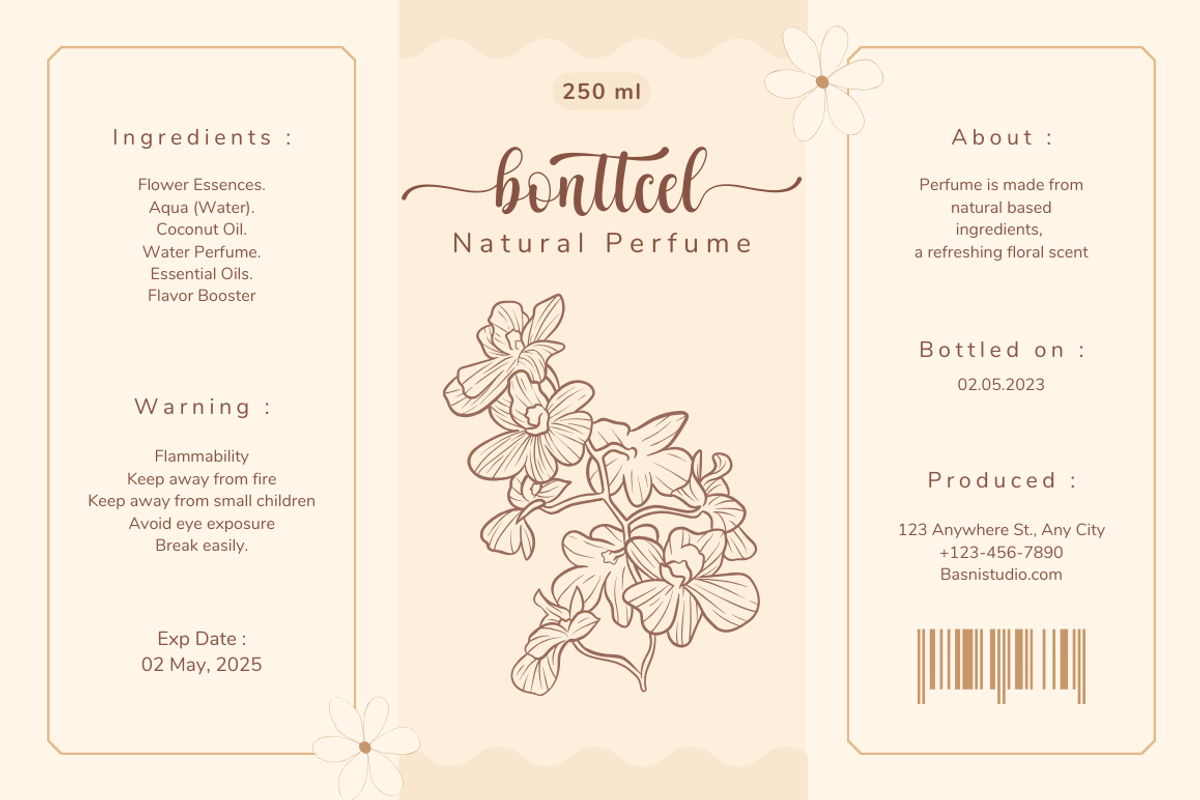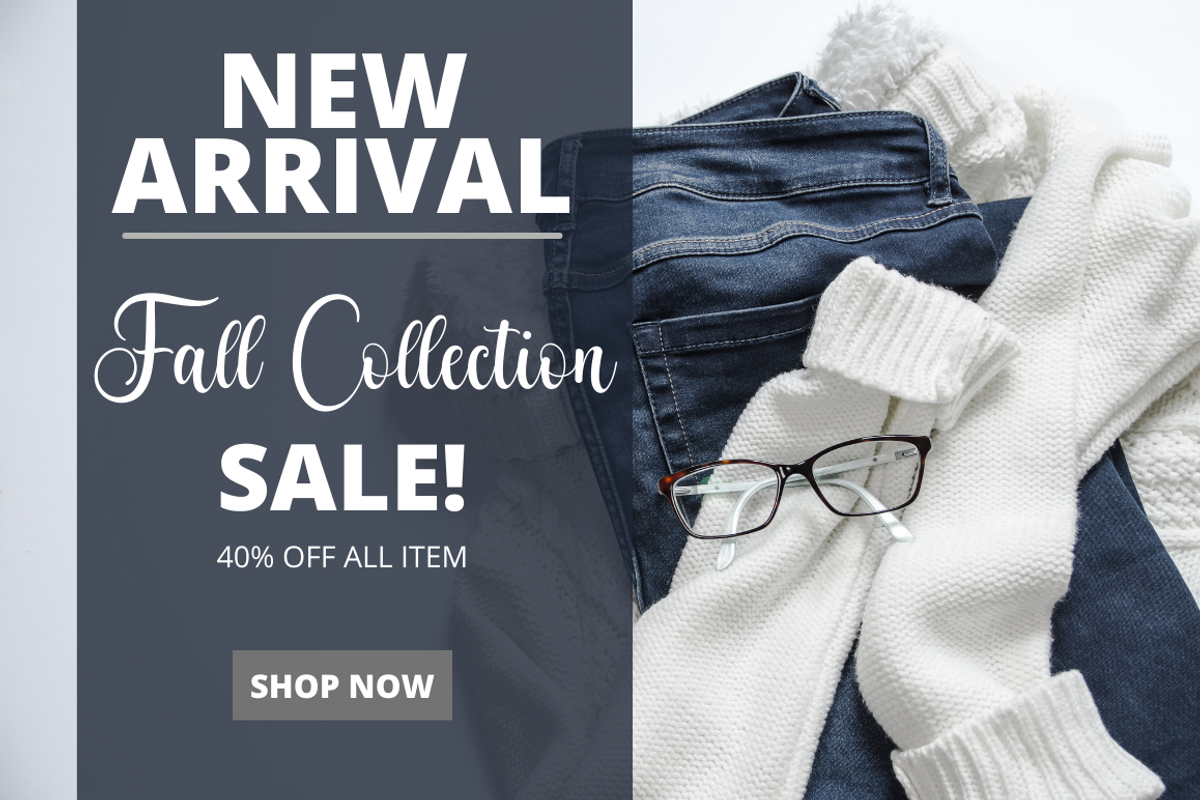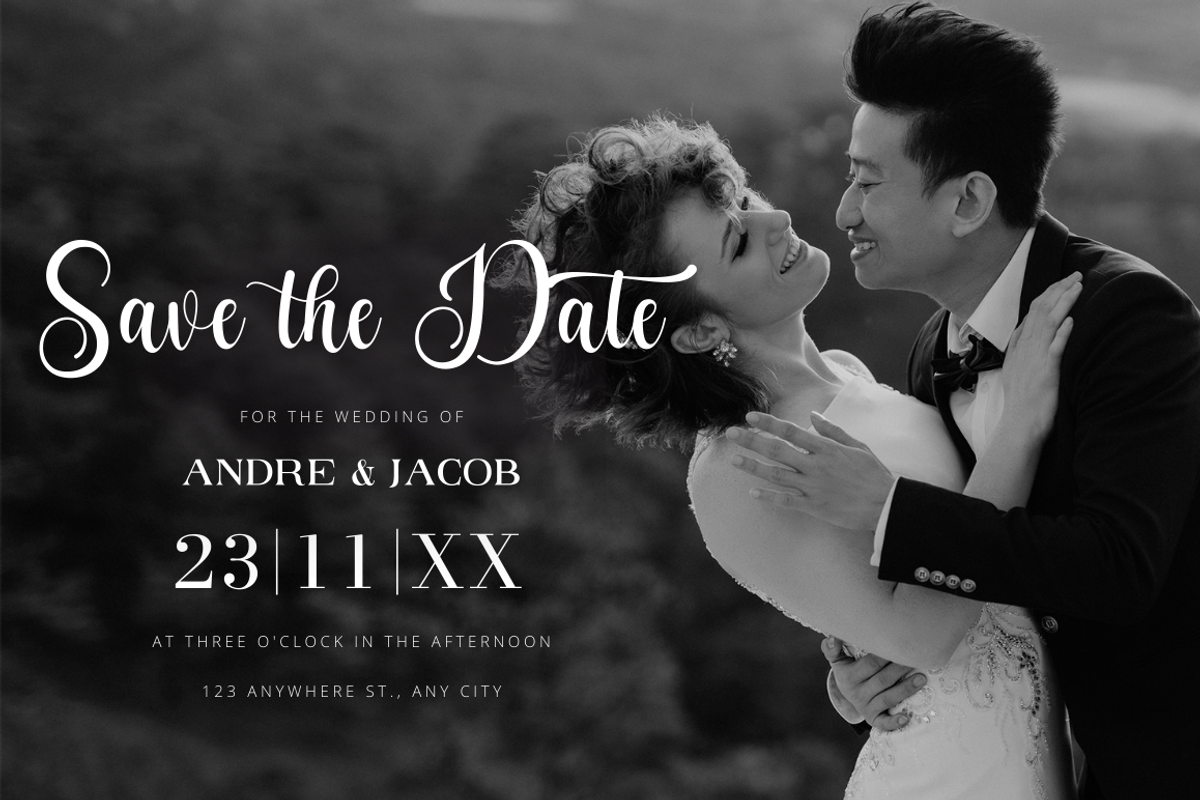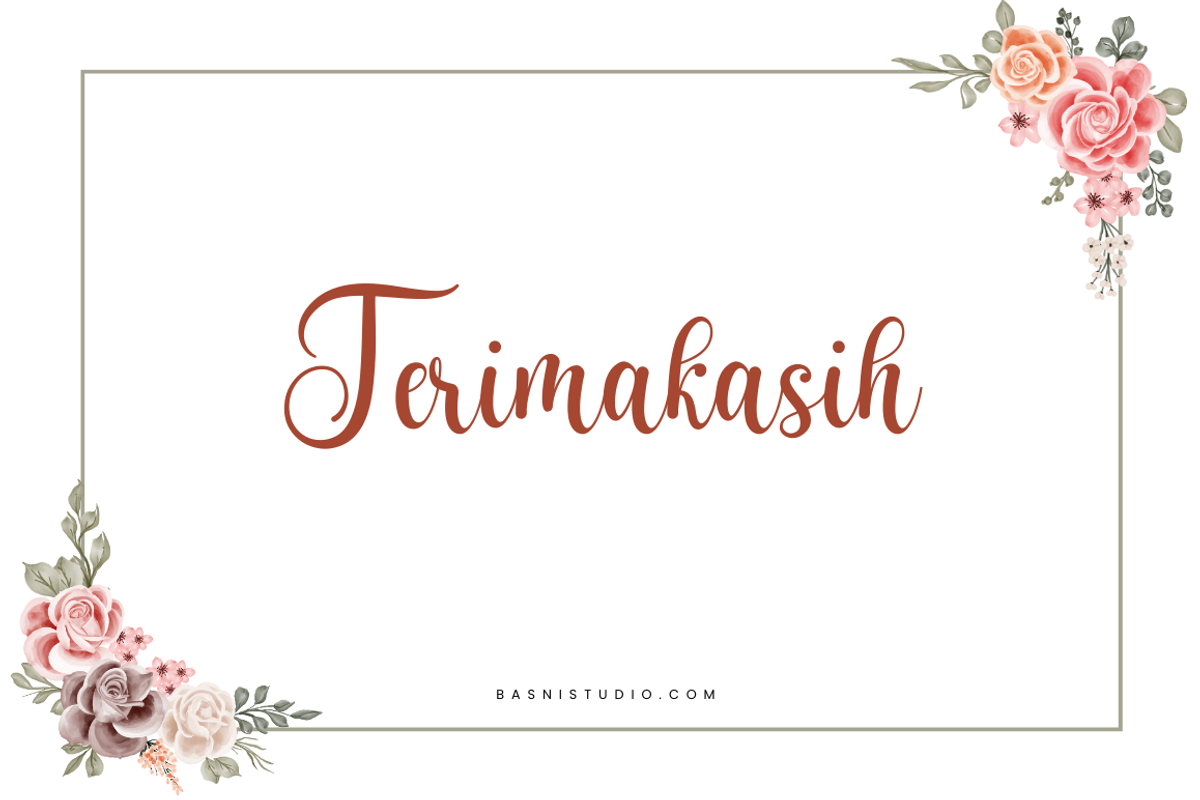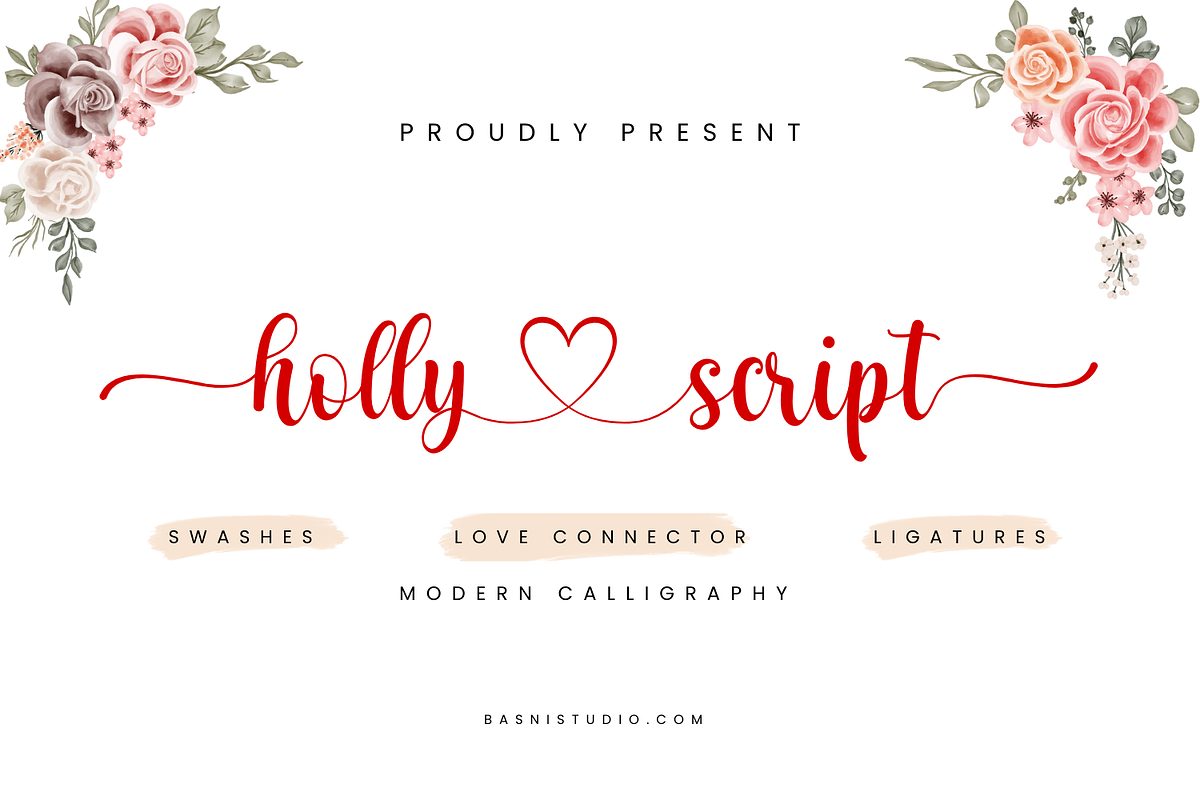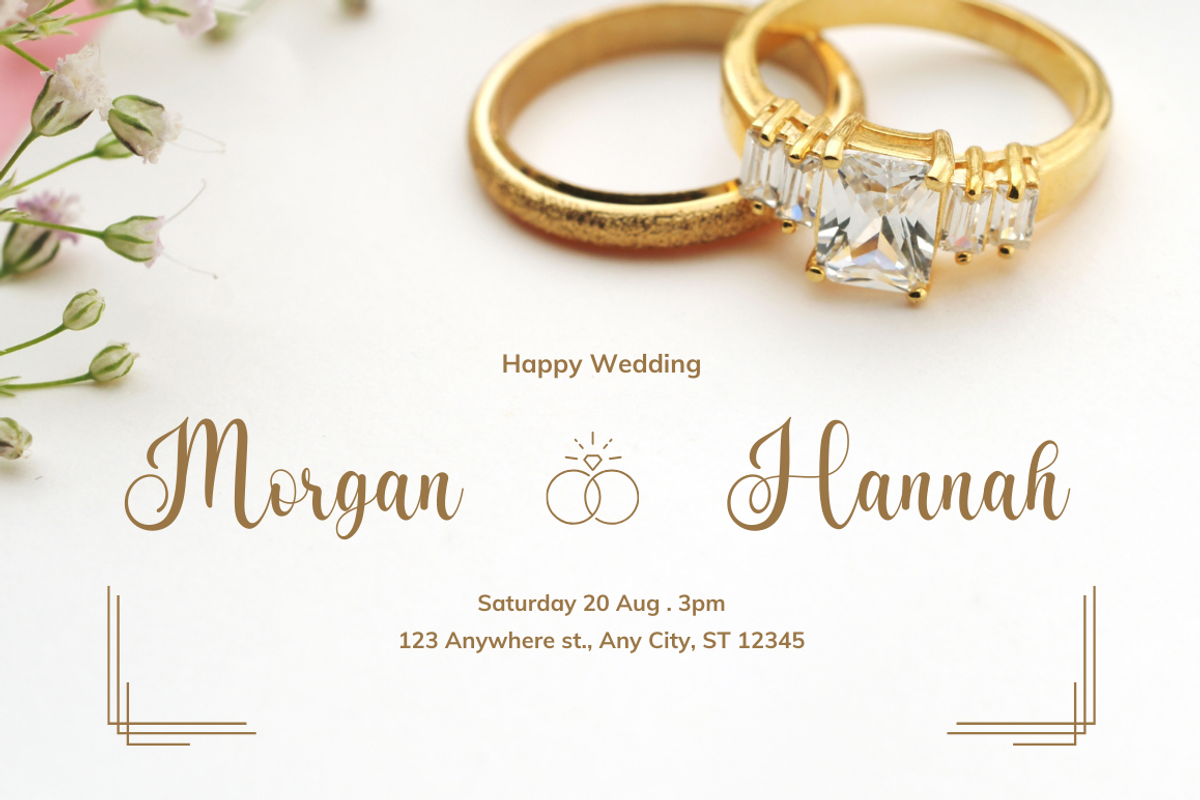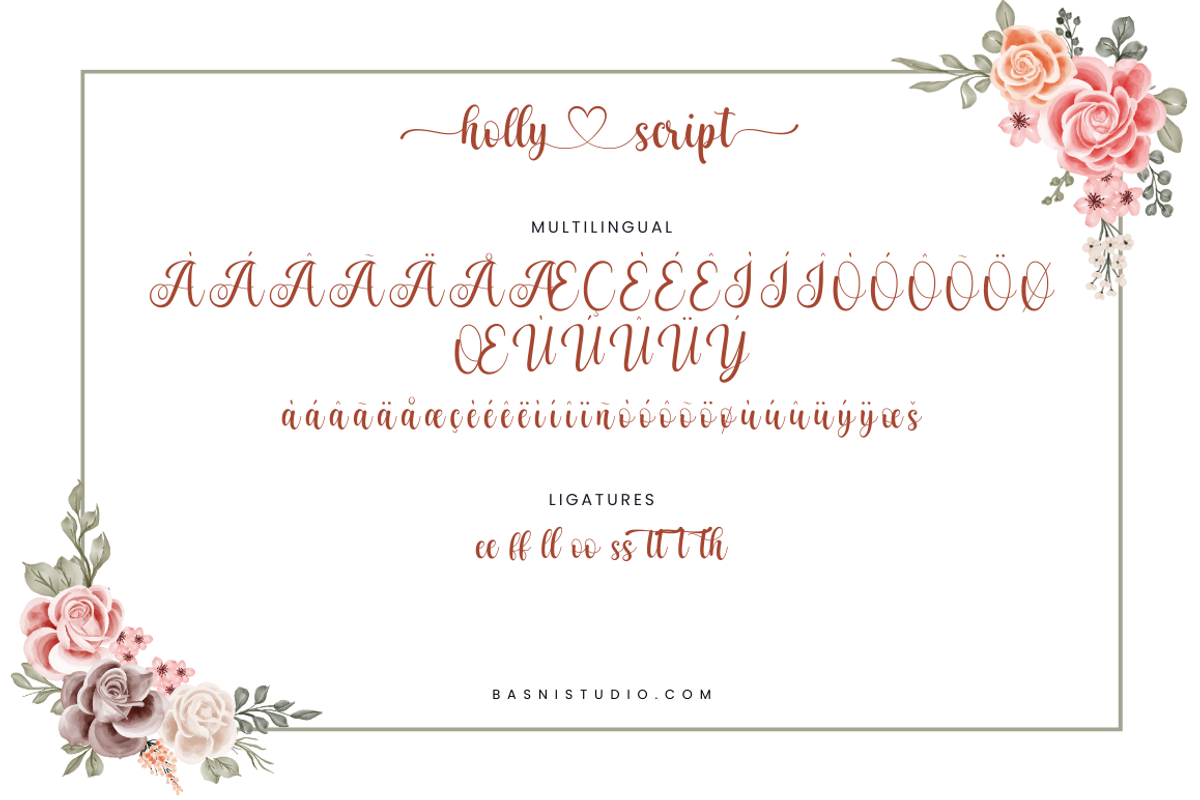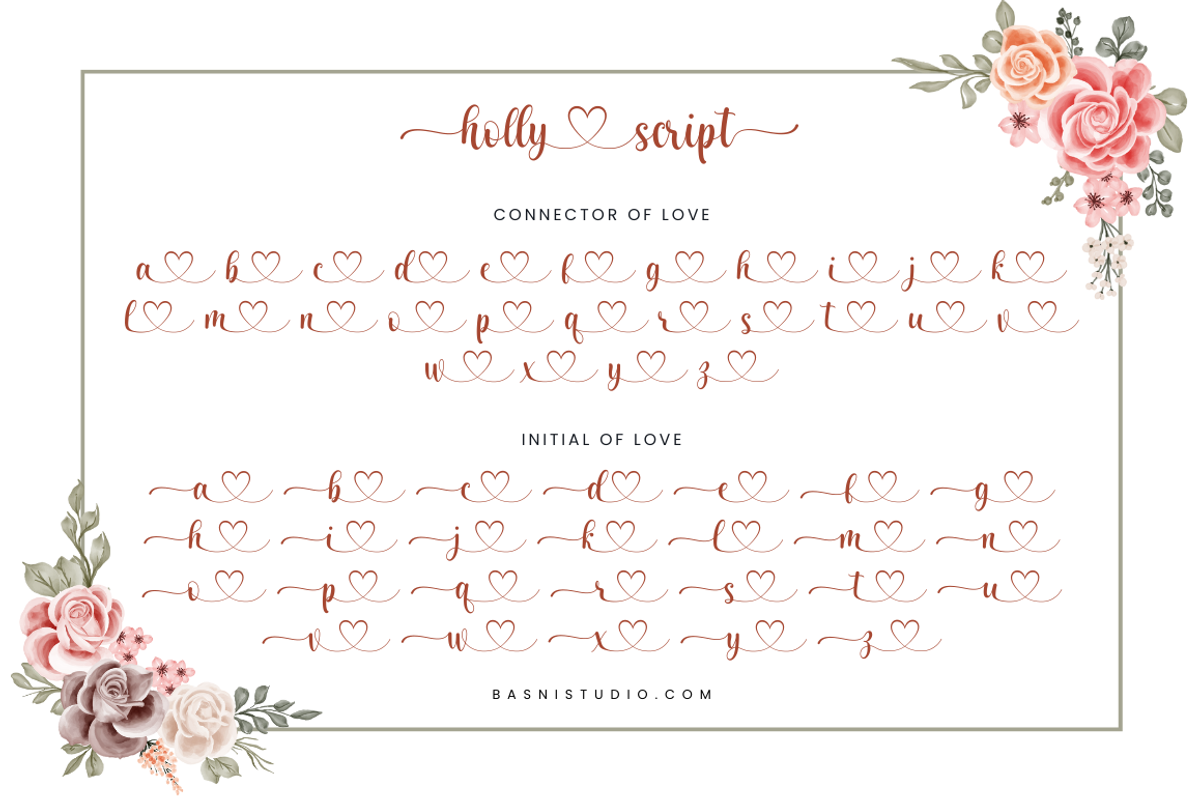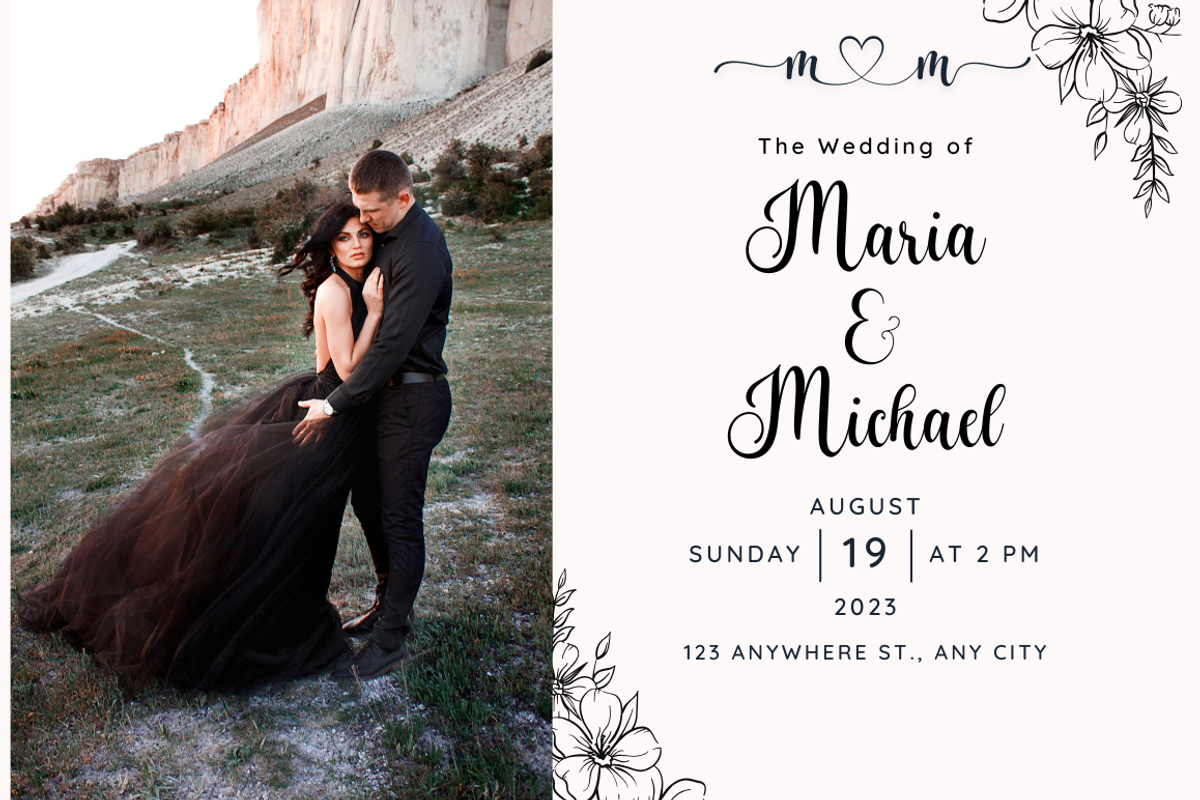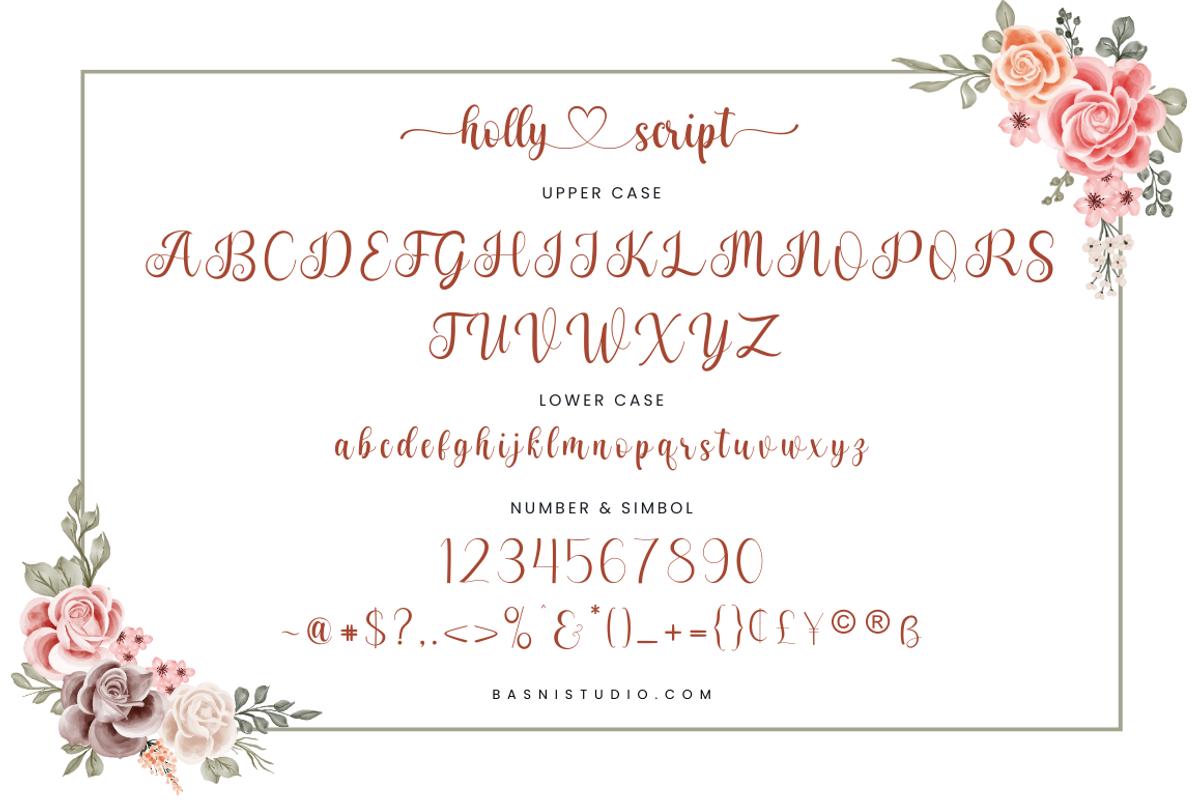
Holly Script Modern Calligraphy
Introducing, Holly Script Modern Calligraphy is a unique Modern calligraphy font, created to complement your designs and make your designs beautiful and more attractive.
Holly Script Modern Calligraphy is very well made, with very neat strokes that add a luxurious impression, there are many style of Glyphs that you can use to enhance your design, this is really charming, please try it yourself.
There are begining & ending swashes, connector of love and initial of love, unique Ligatures for the "tt" Lowercase, and it's quite easy to access them
Holly Script Modern Calligraphy is perfect for Branding, Logos, Wedding Invitations, Quotes, Magazines, and many more.